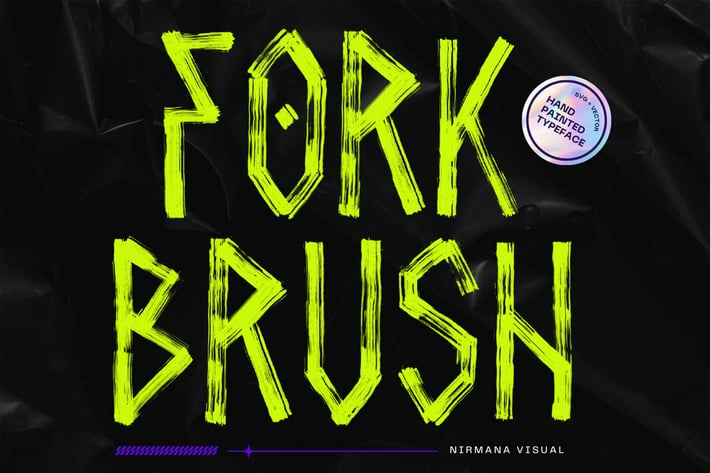
Fork Brush SVG - Logo Font
Fork Brush is a handmade brush. a kind of urban street style. Fork Brush offers beautiful typographic harmony for a diversity of design projects, including logos & branding, social media posts, advertisements & product designs.